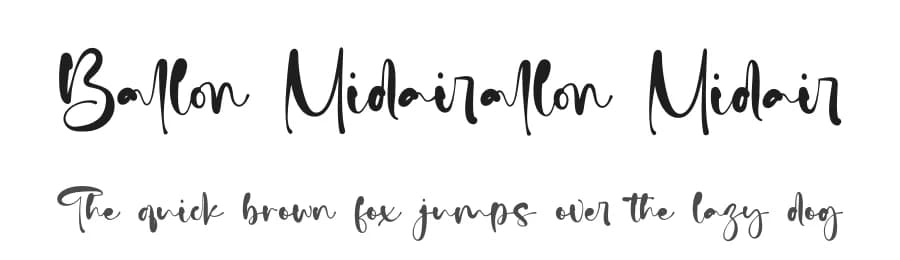
About Ballon Midair Font
Product Description :
Balloon Midair-A Handwritten Script Font
A beautifully handcrafted font thatΒll make your guests sing and elevate your projects! Every stroke and curve was created to spread happiness and elegance. Use it to create standout headings, promote your online sales, Instagram quotes, and even printed materials like business cards, t-shirts, or invitations.
Ballon Midair Specifications
Ballon Midair Font is a script font that shines as a display or heading face. Pair it with a clean sans-serif or serif font for body text β the contrast creates a clear hierarchy while the two styles stay balanced and easy to read.
Ballon Midair Font